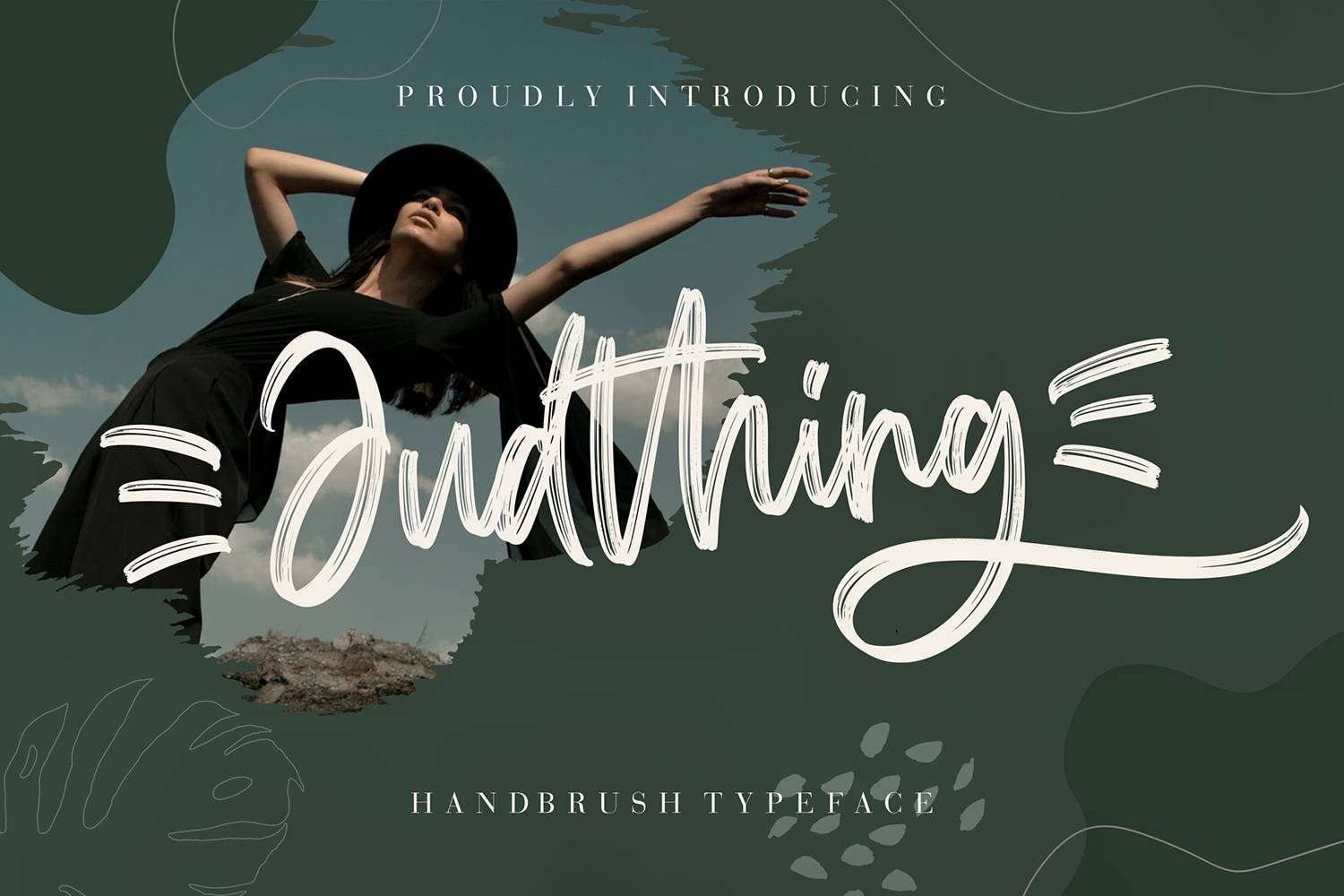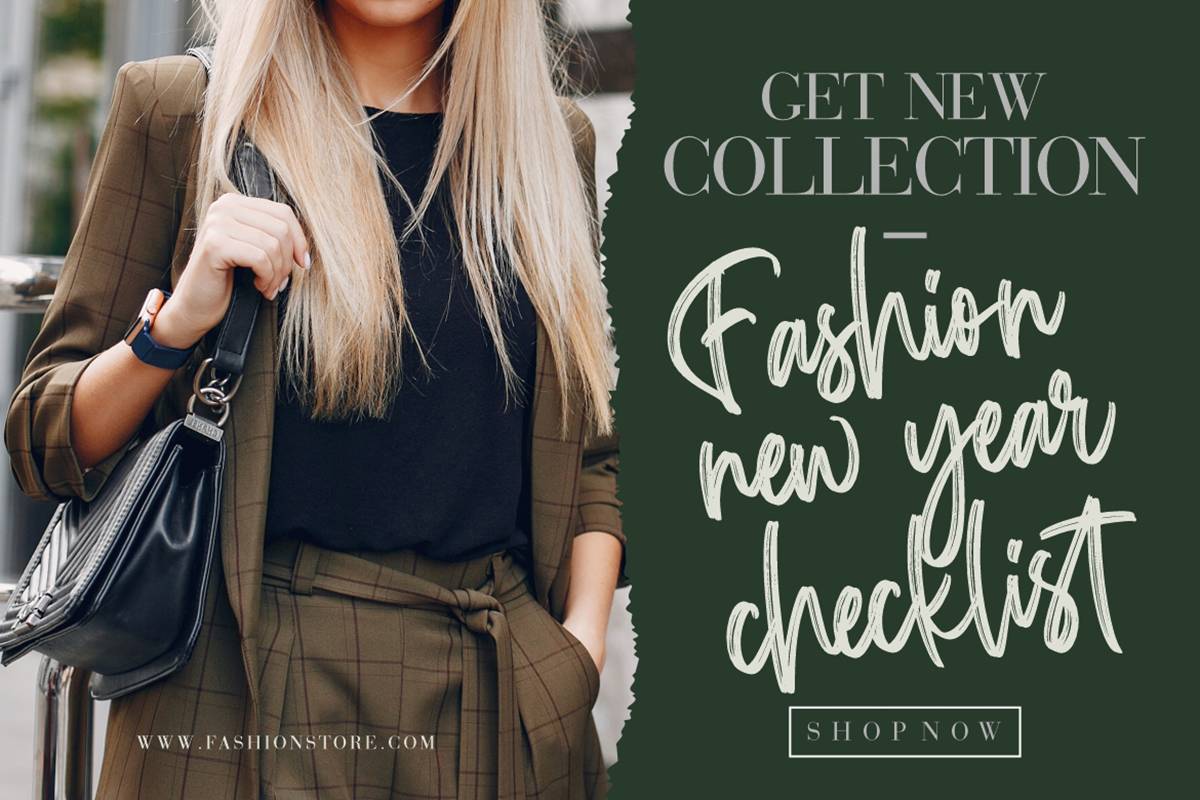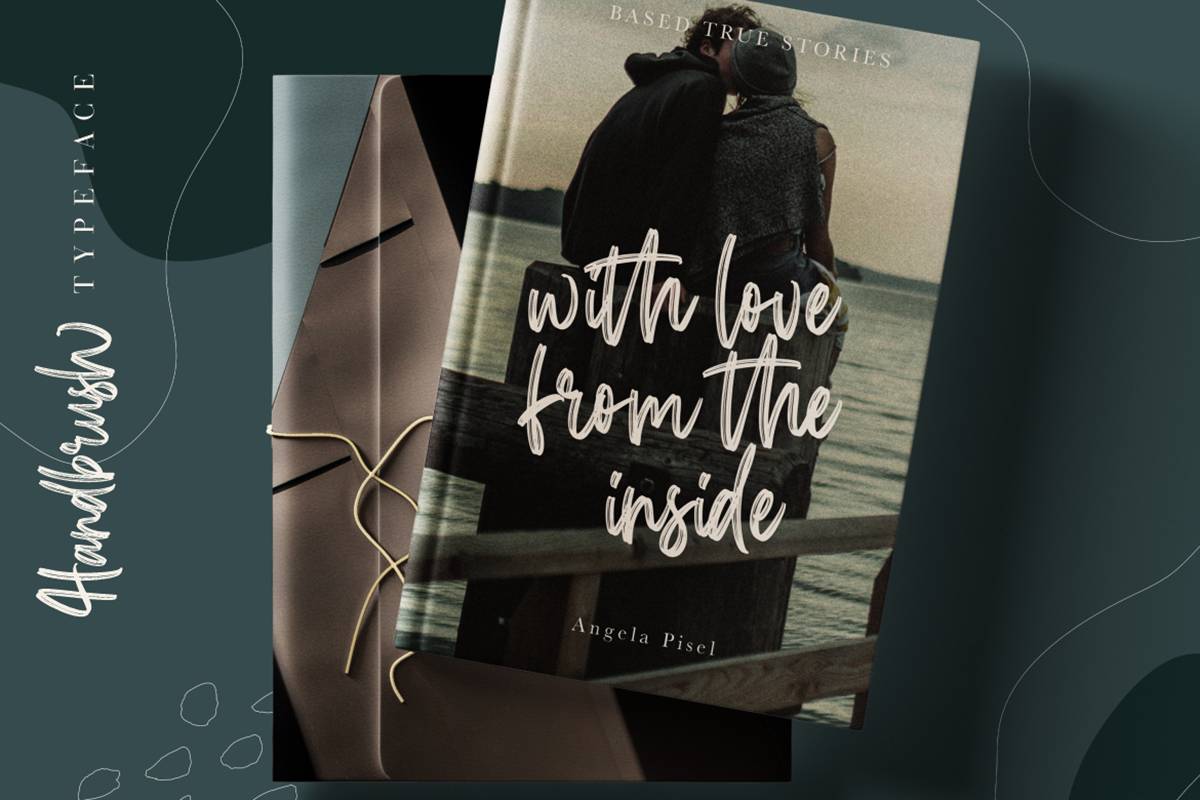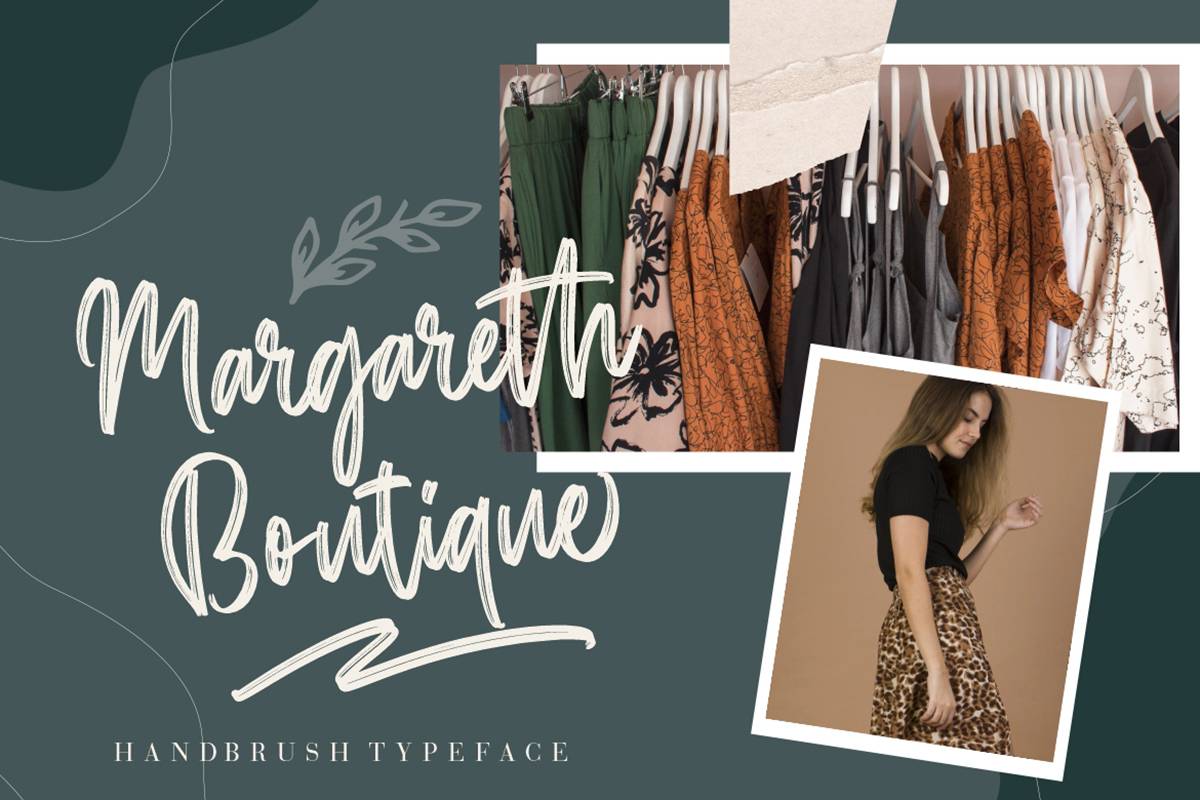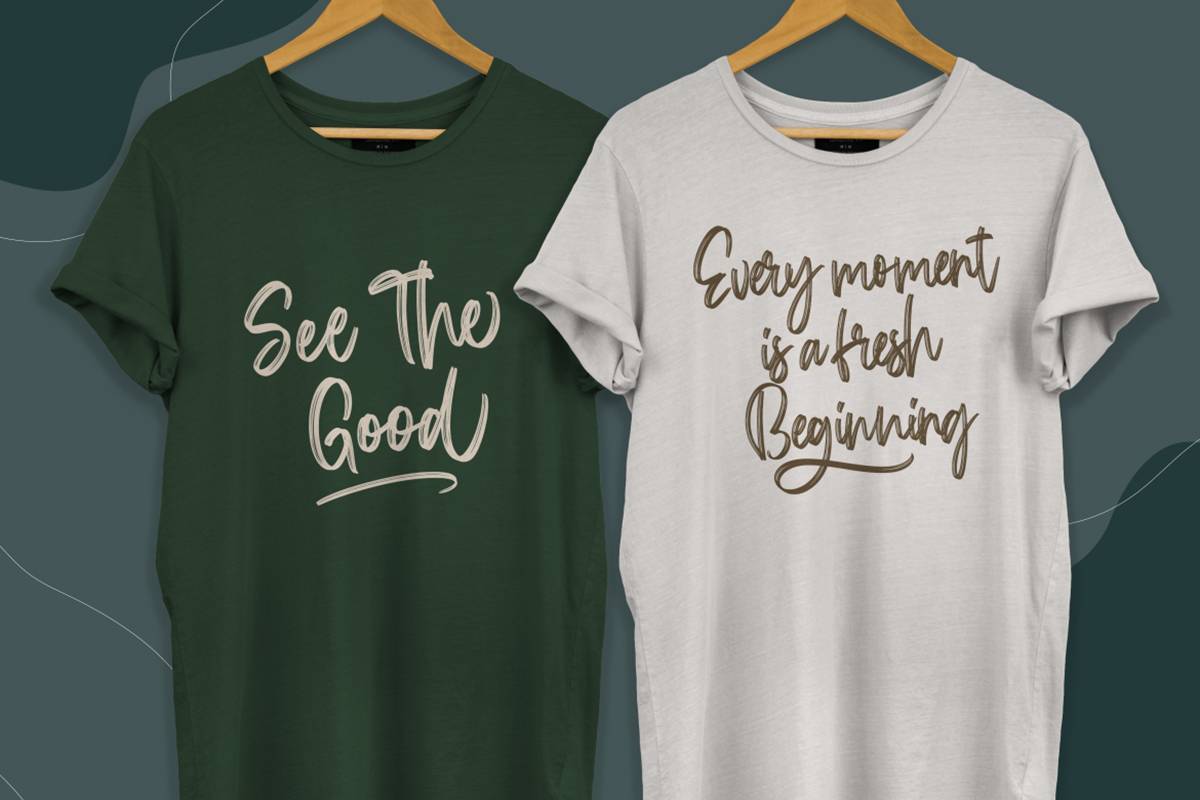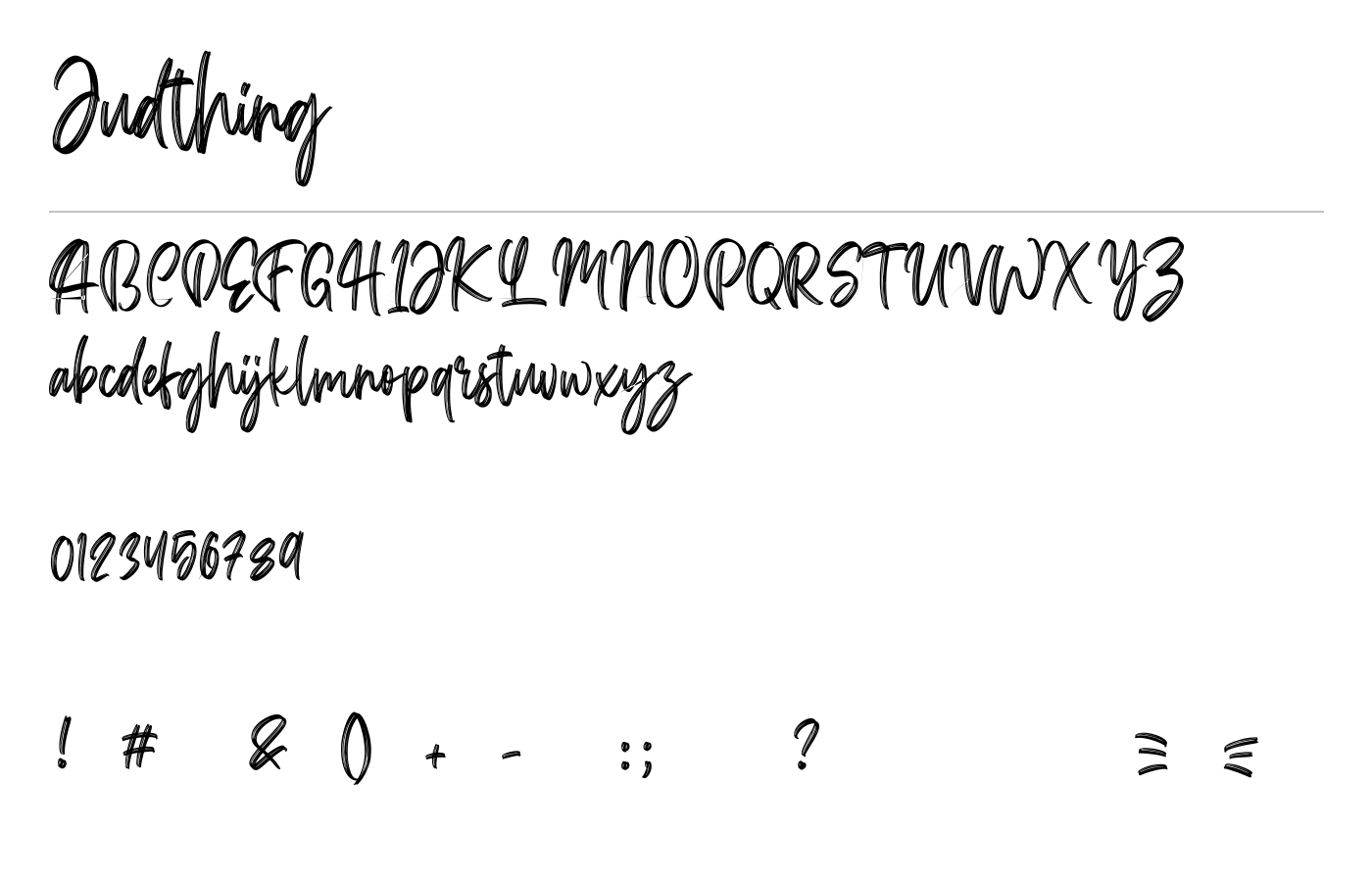
Judthing Handbrush is a lively and expressive handwritten script font that features dynamic brush strokes with a slightly rough texture, giving it an authentic hand-painted feel. Its tall, narrow letterforms with varying stroke widths evoke a casual yet artistic vibe, making it perfect for creative projects, branding, and designs that seek a personal, energetic touch. This font works well in logos, posters, and social media graphics where a bold, handcrafted look can stand out and convey personality.
Judthing Handbrush Font
About Judthing Handbrush Font